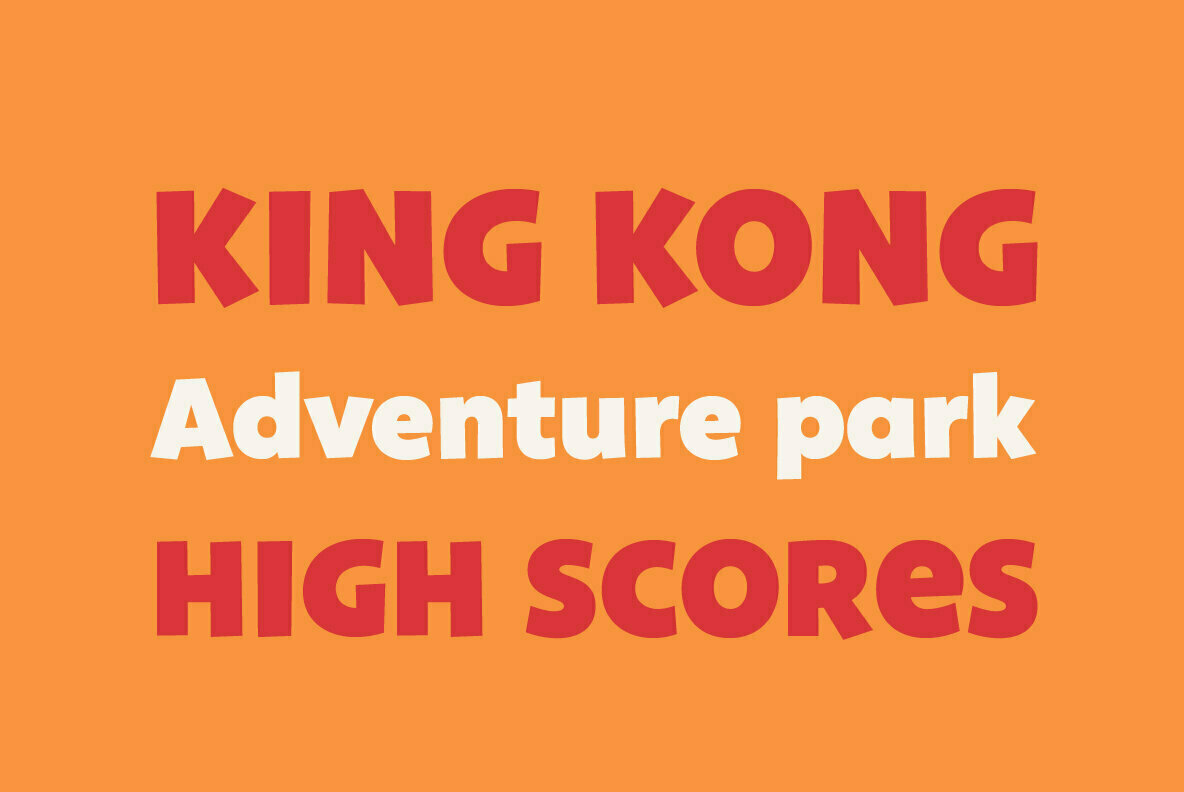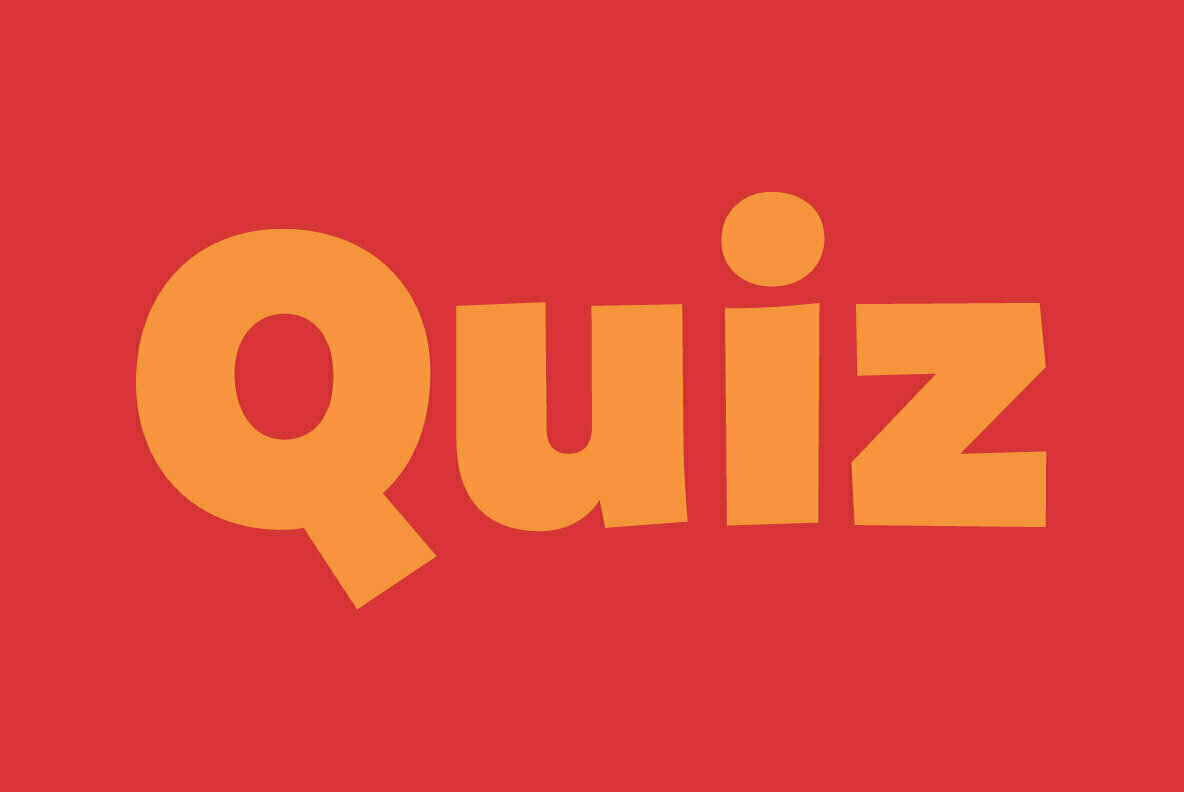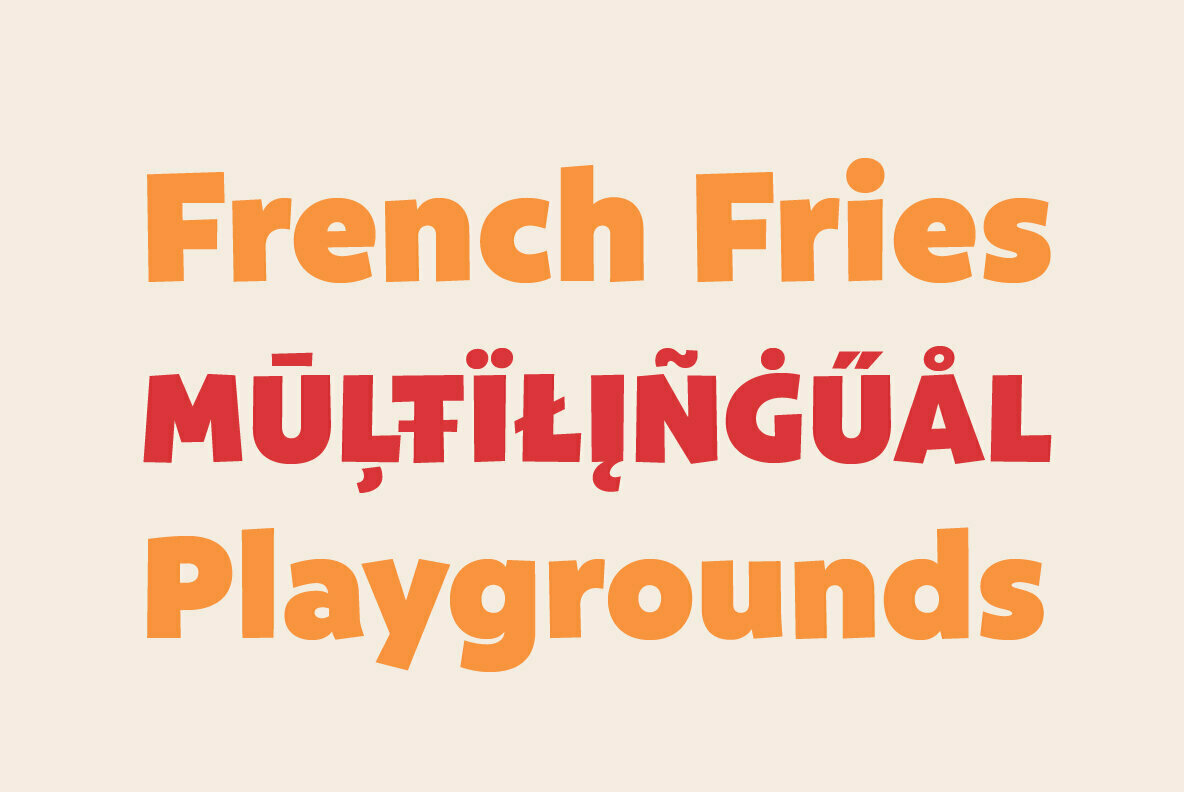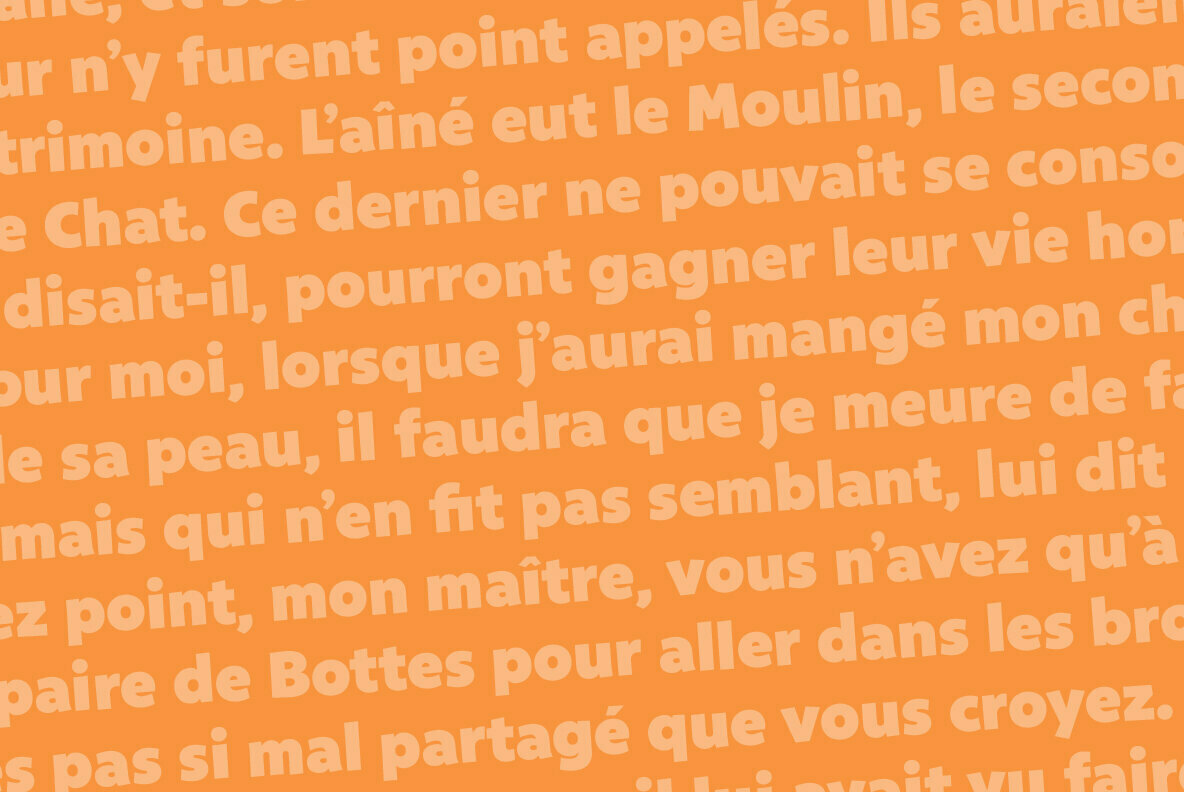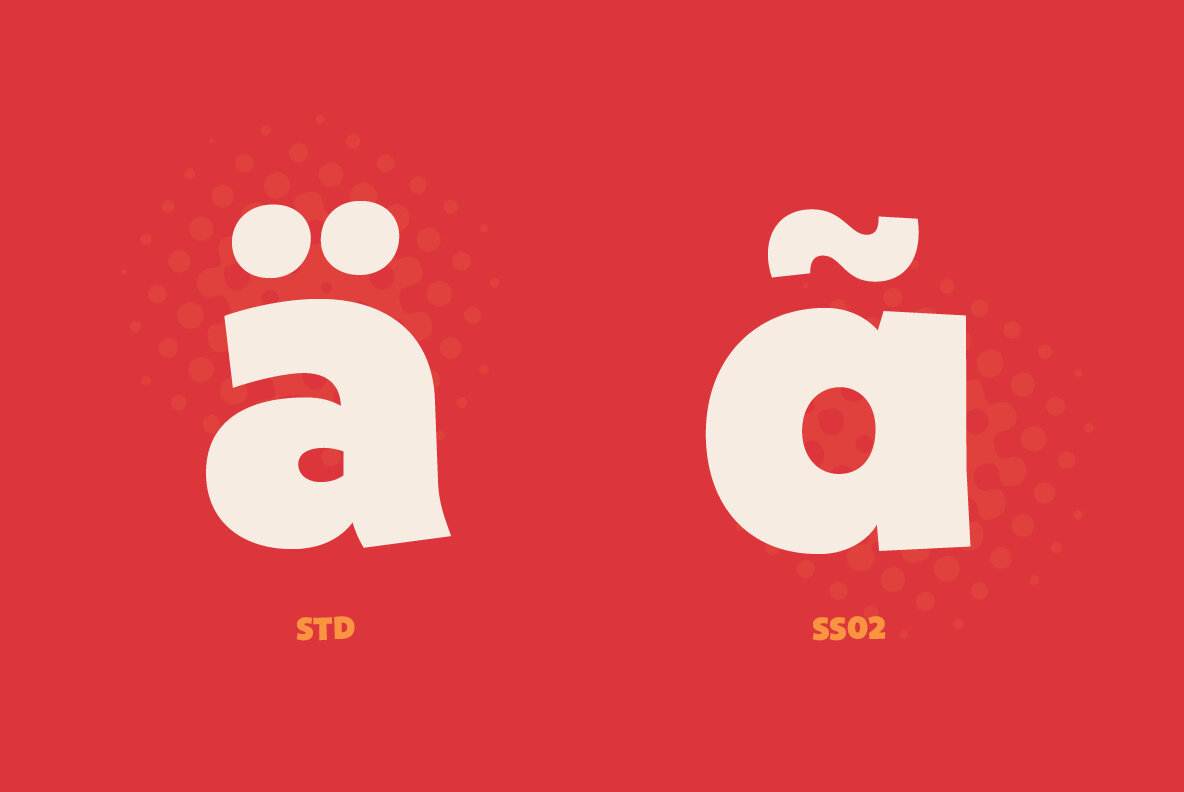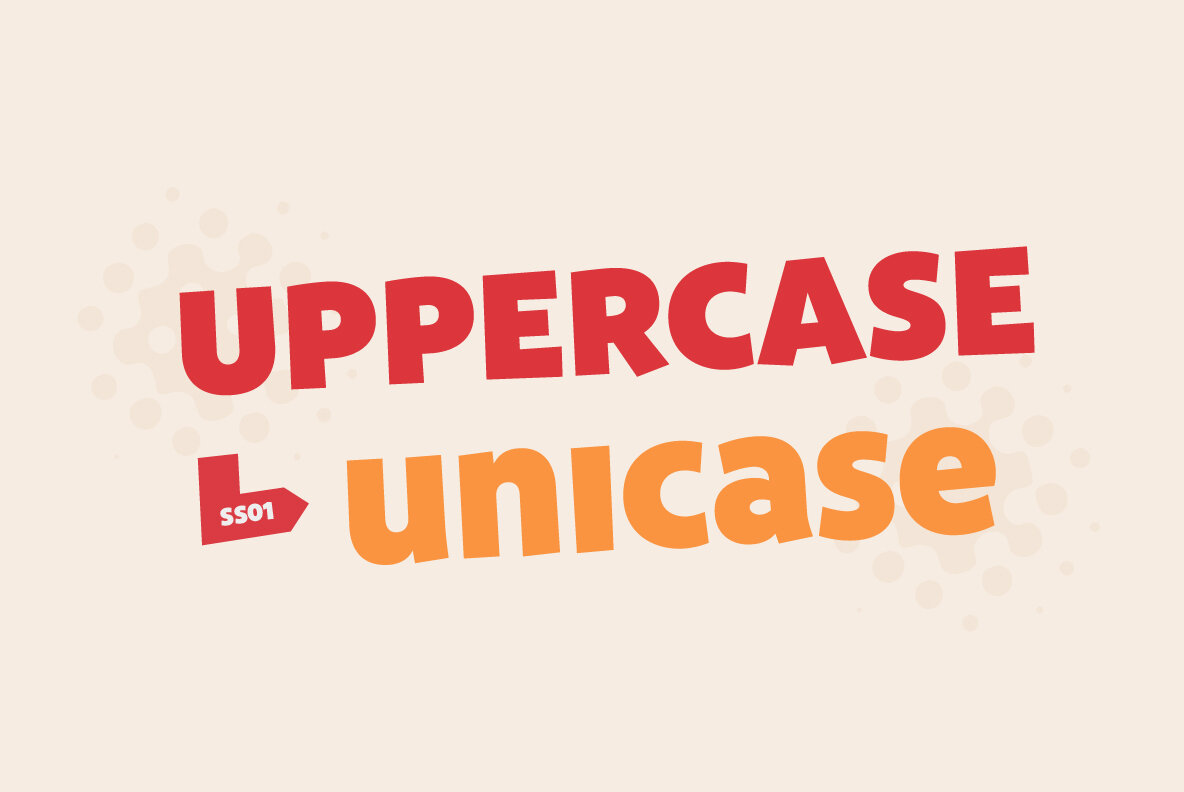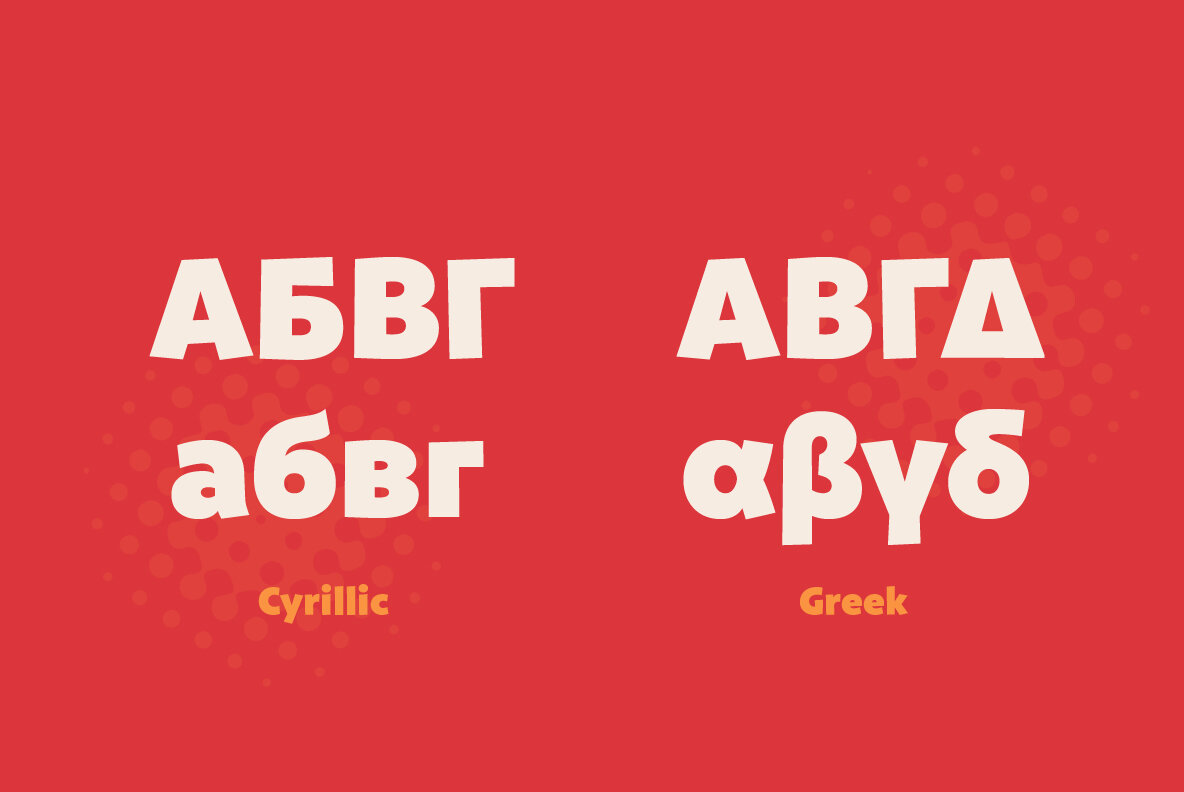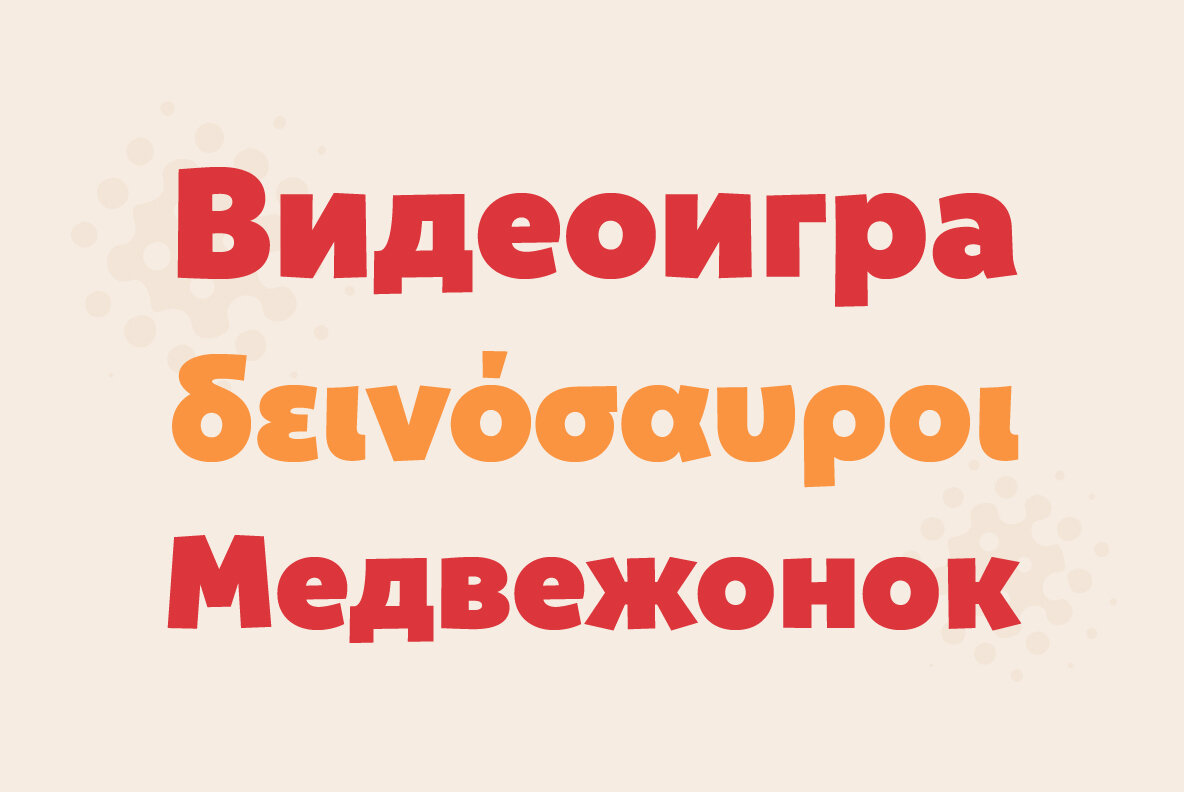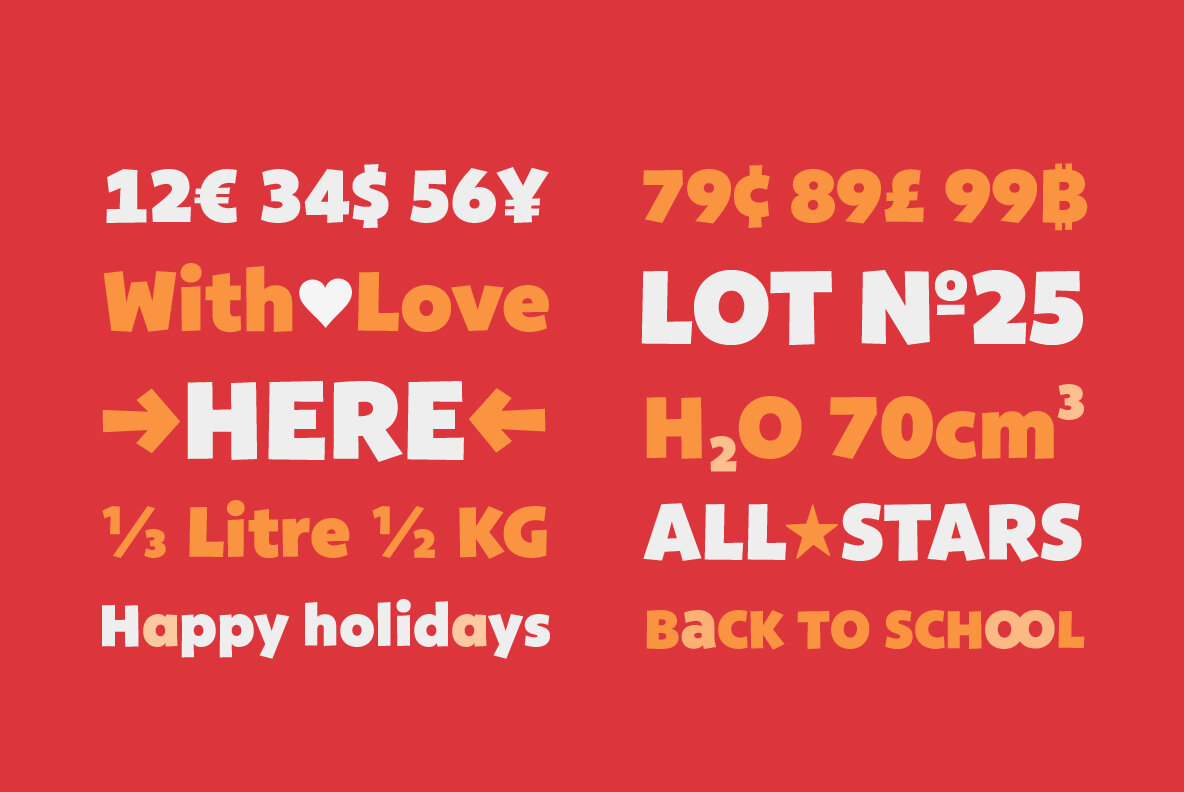
Bango Pro
Bango Pro is a lively, heavyweight font with a strong cartoon feel, perfect for poster design, packaging, and anything that needs to draw attention - in an informal way.
Initially released in 2011, Bango Pro is now in its third iteration. This new version now supports Greek and Cyrillic, among many other improvements : several glyphs were redrawn, spacing and kerning were improved, OpenType feature rewritten. With around 700 glyphs to play with, Bango pro is a solid choice for complex, multilingual projects.
- Several glyphs redrawn
- Spacing and kerning improved